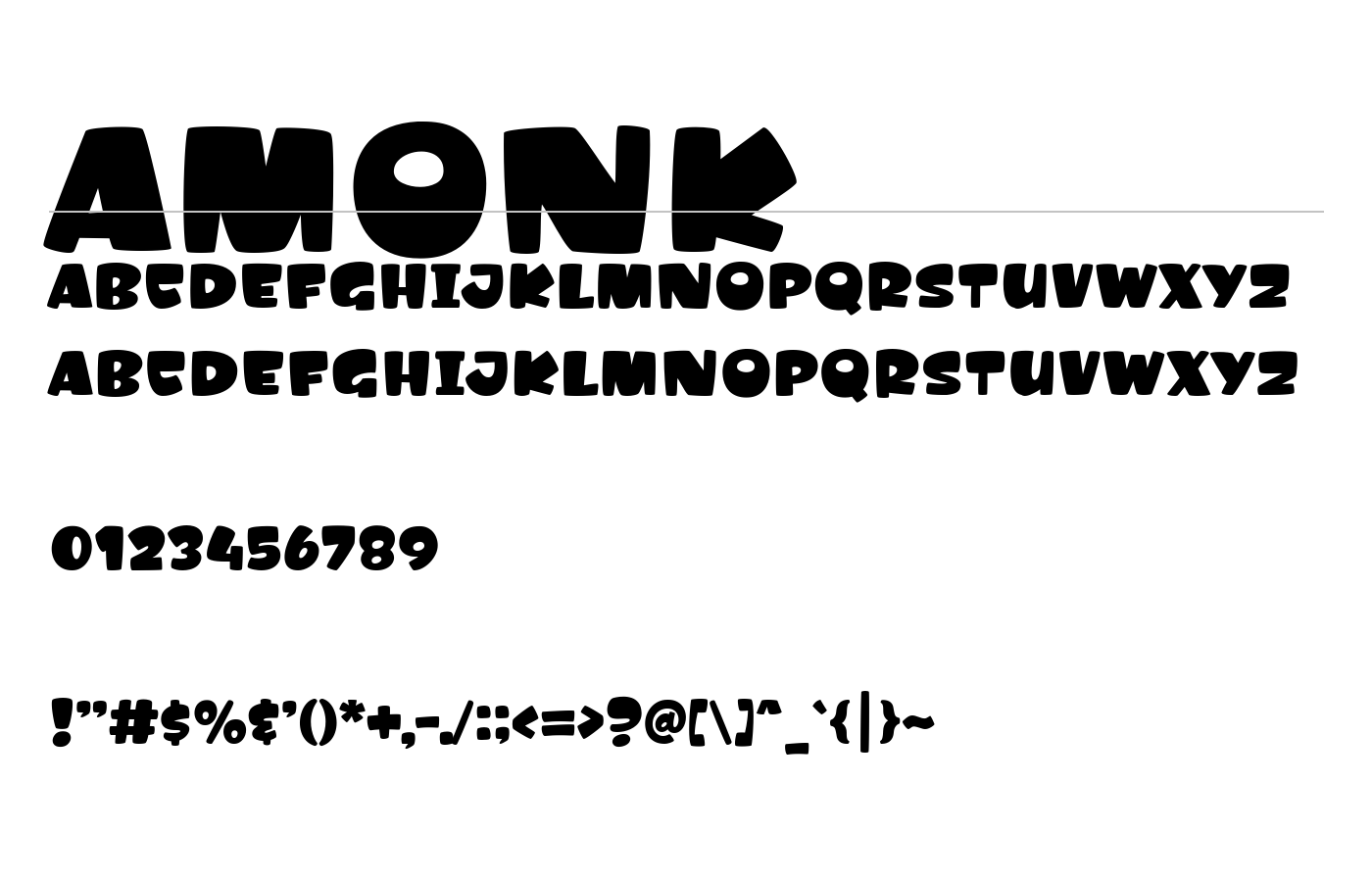
Amonk is a bold, playful sans serif font with wide, chunky letterforms and rounded edges that create a friendly, approachable feel. Its heavy weight, irregular shapes, and strong presence make it ideal for eye-catching headlines, kids’ designs, or casual branding that needs a fun and energetic vibe. This font works best where impact and personality are key, like posters, logos, or packaging for informal and lively projects.
Amonk Font
About Amonk Font
| Font family | Amonk Font |